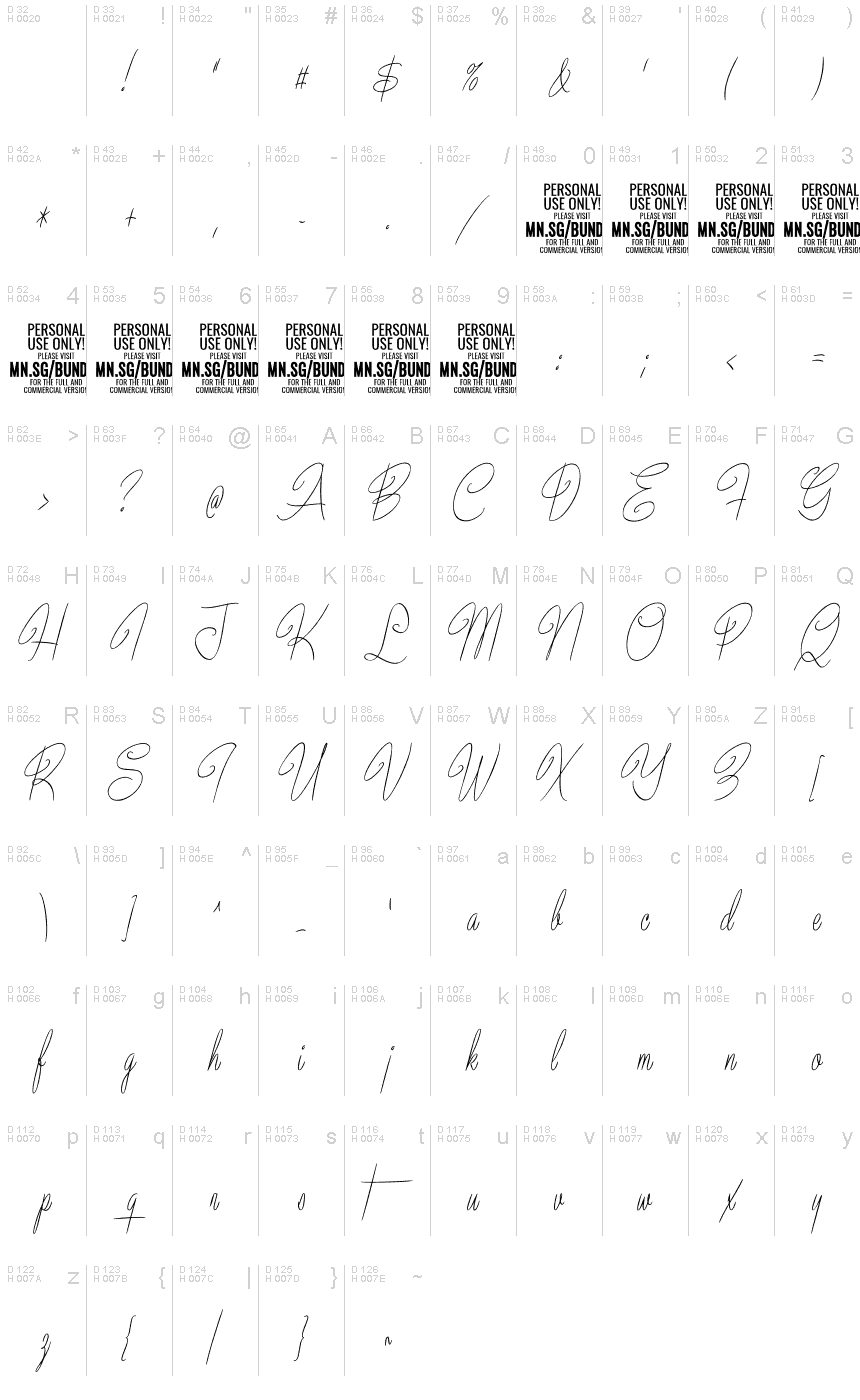
Bundey Script PERSONAL USE Italic
Meet Bundey Script Italic, the ultra-light and condensed handwriting font designed by Mans Greback. Perfect for adding a touch of elegance to your designs, this font is suitable for various creative projects such as wedding invitations, product packaging, and branding materials. Its delicate strokes create a graceful flow that will capture anyone's attention. With Bundey Script Italic, you can convey a sense of sophistication and refinement effortlessly. Try it out today and elevate your designs to new heights!